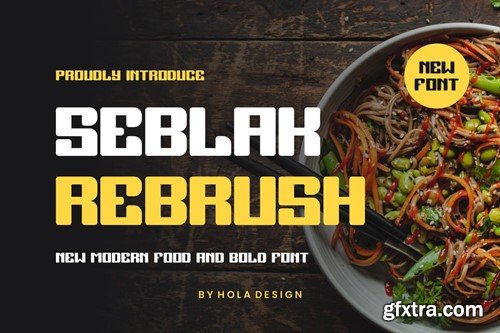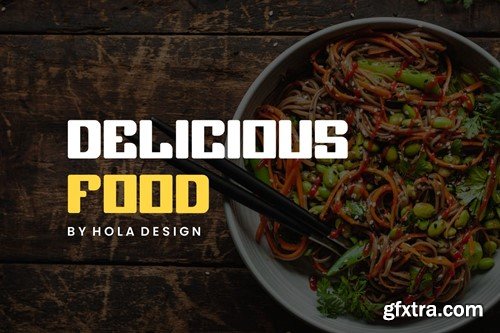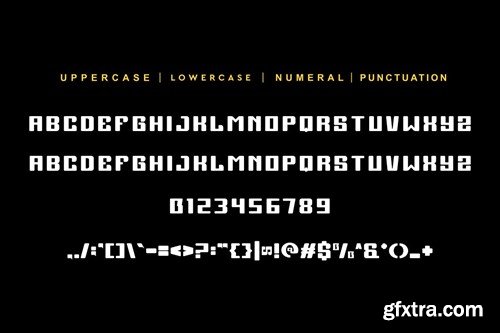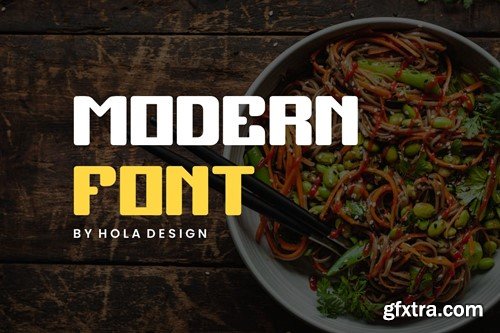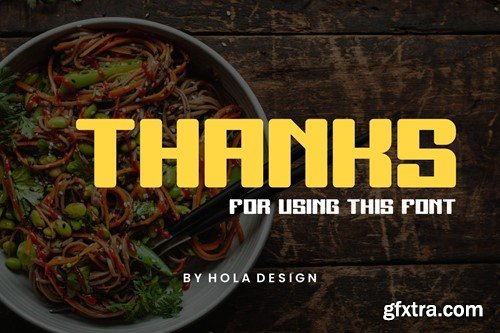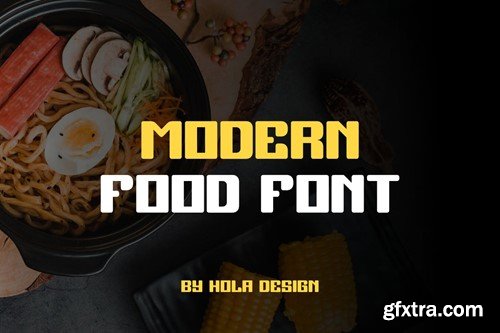
Seblak Rebrush - New Modern & Bold Font KYL9JFE
Seblak Rebrush - New Modern & Bold Font
Seblak Rebrush - New Modern & Bold Font Font is unique . Ready to use for your design like labeling, movie sceen, poster, movie title, gigs, album covers, logos, and much more.